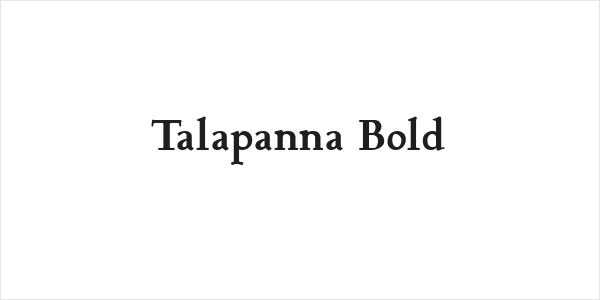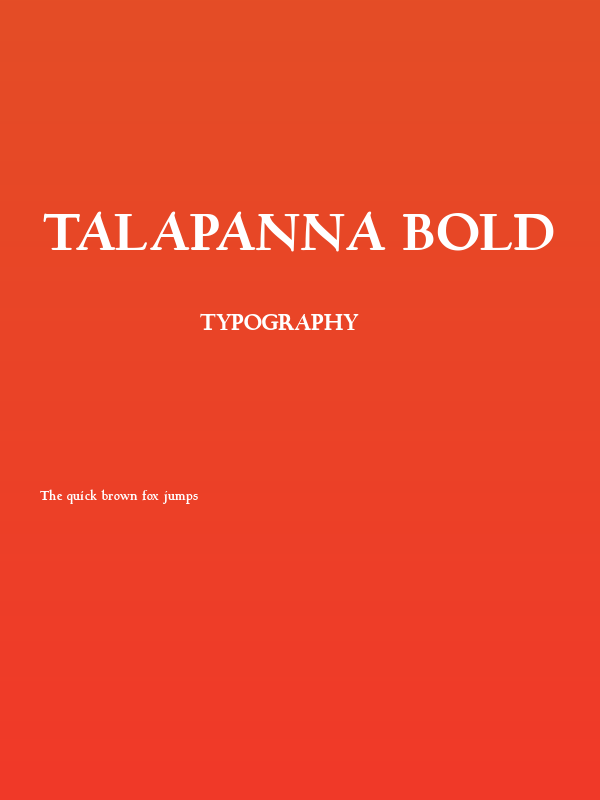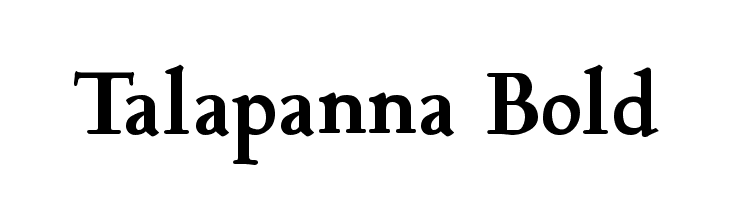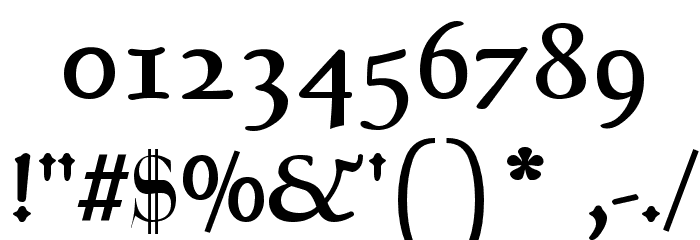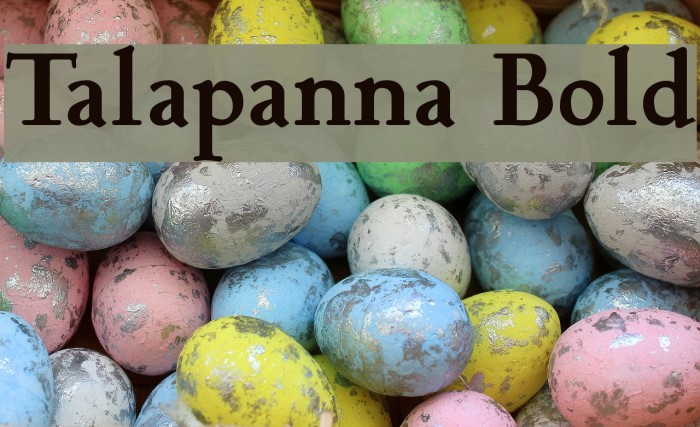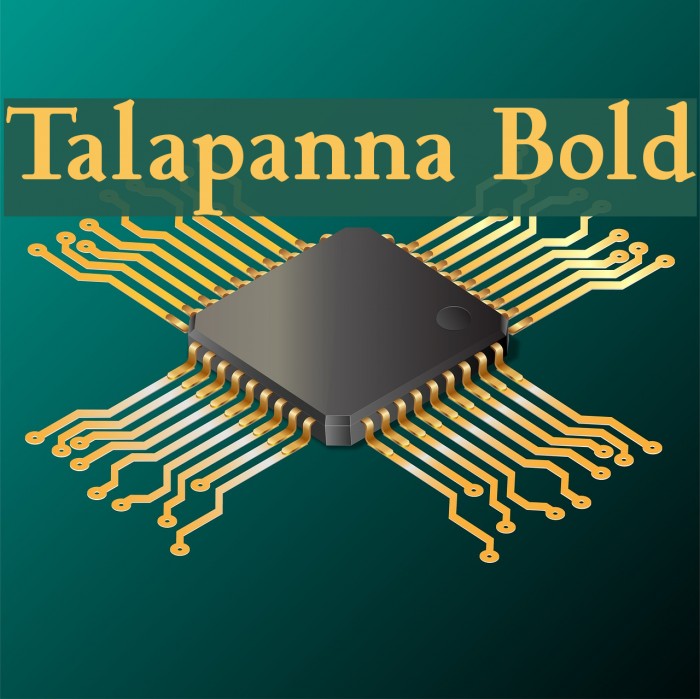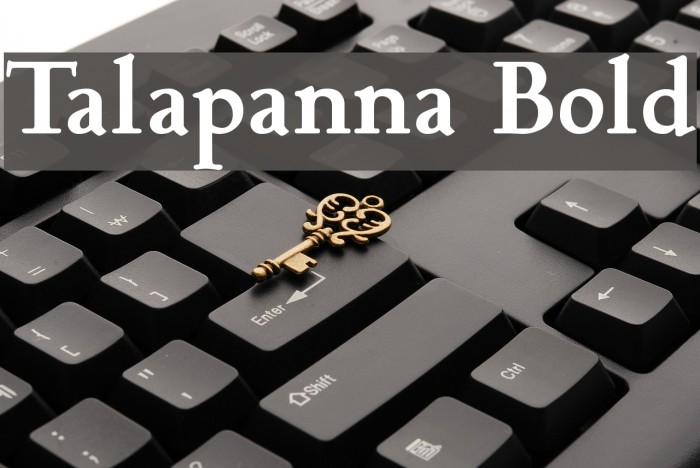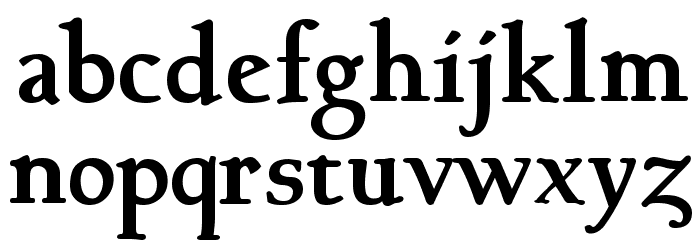
Talapanna Bold Font
Talapanna Bold Description
This font exhibits a classic serif style with a bold weight, characterized by its strong, pronounced strokes and elegant curves. The uppercase letters are robust and commanding, while the lowercase letters maintain a balanced and readable form. The numerals are clear and distinct, making them suitable for various applications. Special characters are well-integrated, maintaining the overall aesthetic of the font. The serifs are prominent, adding a touch of sophistication and traditional appeal. This font is versatile, suitable for both digital and print media, and can be used effectively in headlines, titles, and body text where a bold, authoritative presence is desired.
| Proposed Projects | Ideal for book covers, editorial design, branding, and formal invitations. |